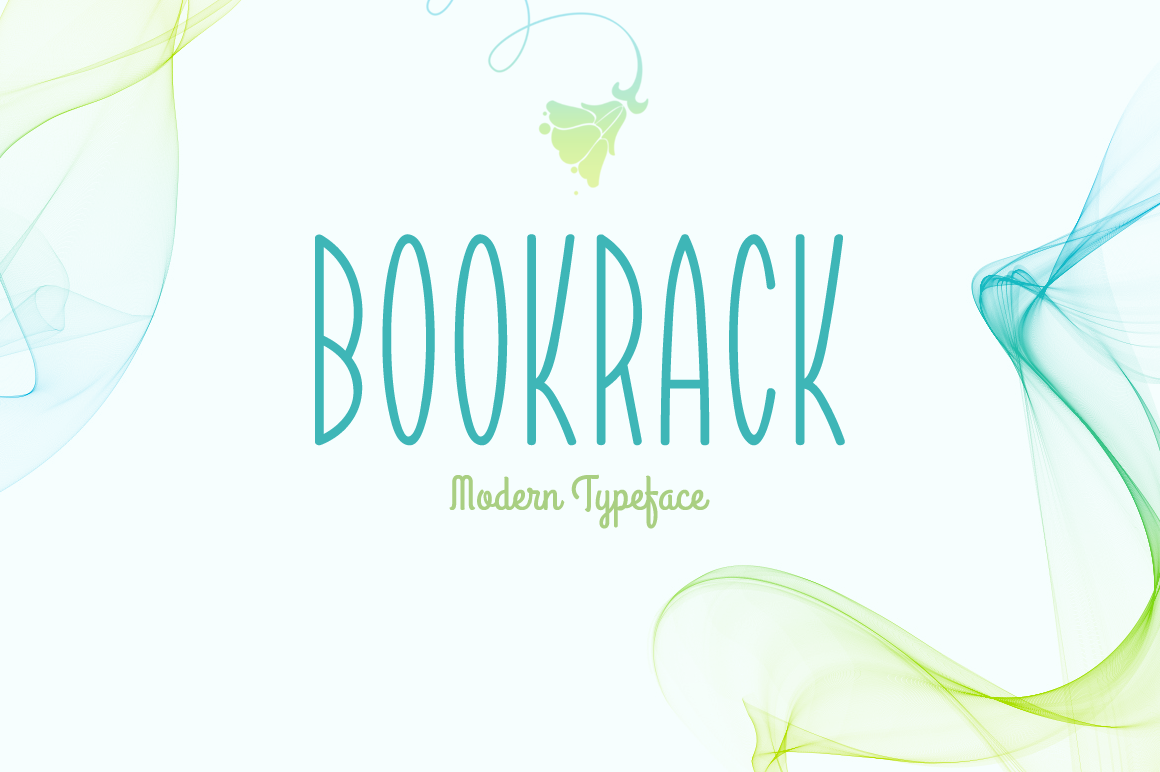
Discover the Perfect Font for Whimsical Designs
Who among us hasn’t felt the rush of excitement when brainstorming ideas for a new creative project? The spark of inspiration ignites, and suddenly, the possibilities seem endless. For many designers, this moment is the catalyst for bringing their vision to life. But, have you ever found yourself stuck, searching for the perfect font to match your unique style?
Enter the charming Bookrack Font, a cutesy, thin sans serif font designed to elevate your lighthearted designs. With its modern yet relaxed aesthetic, Bookrack Font is the perfect companion for creative projects that need a touch of whimsy. Whether you’re crafting a children’s book, designing a social media campaign, or creating a blog post, this font is sure to bring a smile to your audience’s faces.
As a designer, you know the value of a well-chosen font. It can make or break the overall look and feel of your project. With Bookrack Font, you’ll have the versatility to create stunning visuals that are both playful and professional.
Bookrack Font Key Features
- Font Family: Bookrack Font is a sans-serif font family designed specifically for body text, with a unique, modern aesthetic.
- Font Size: Bookrack Font is designed to be highly legible at small font sizes, with a minimum recommended size of 8 points.
- Resolution: Optimized for on-screen use at resolutions up to 300 DPI, ensuring crisp and clear text display on various devices.
- Unique Characteristics: Bookrack Font features a distinctive, rounded sans-serif design with a subtle x-height, making it highly readable in both print and digital formats.
- Font Weight: Available in 6 weights (Light, Regular, Medium, Semi-Bold, Bold, and Extra Bold), providing a range of options for typography and design.
Bookrack Font Review
As a designer, I’ve had the chance to play around with the Bookrack Font, and I must say it’s a mixed bag. Here’s my honest review.
- The Bookrack Font is highly legible, making it perfect for body text and paragraphs.
- It’s got a clean and minimalist aesthetic that works well for digital products, websites, and mobile apps.
- The font is highly versatile and can be used for a variety of projects, from editorials to marketing materials.
- The font lacks personality and can feel a bit bland in certain contexts.
- It’s not ideal for titles or headlines, as it can get lost in the background.
- The font family is relatively small, which can limit its use in certain projects.
Overall, I’d say the Bookrack Font is a solid choice for projects where legibility is key, but it’s not the most exciting font out there. It’s a safe bet, but it may not stand out from the crowd.
Tips for Getting the Most Out of Bookrack Font
Bookrack Font is ideal for book covers, quotes, and titles.
Use it in conjunction with a bold font for maximum impact.
Experiment with different font sizes and styles to create a unique look.
Bookrack Font is commonly used for:
Book covers and titles
Quotes and inspirational graphics
Author branding and logos
Alternatives to Bookrack Font
Playfair Display is a luxurious, high-end serif font ideal for creating elegant and sophisticated designs. It’s perfect for use in high-end branding, advertising, and editorial content.
Compared to Bookrack Font, Playfair Display is more ornate and refined, making it suitable for premium brands and products. While Bookrack Font has a more rustic feel, Playfair Display exudes luxury and sophistication.
Merriweather is a classic, traditional serif font that’s perfect for creating a sense of warmth and familiarity. It’s ideal for use in body text, headers, and titles in a variety of contexts, from editorial content to branding.
Compared to Bookrack Font, Merriweather is more straightforward and classic, lacking the rustic feel of Bookrack Font. While Bookrack Font is perfect for creating a sense of nostalgia, Merriweather is better suited for creating a sense of tradition and timelessness.